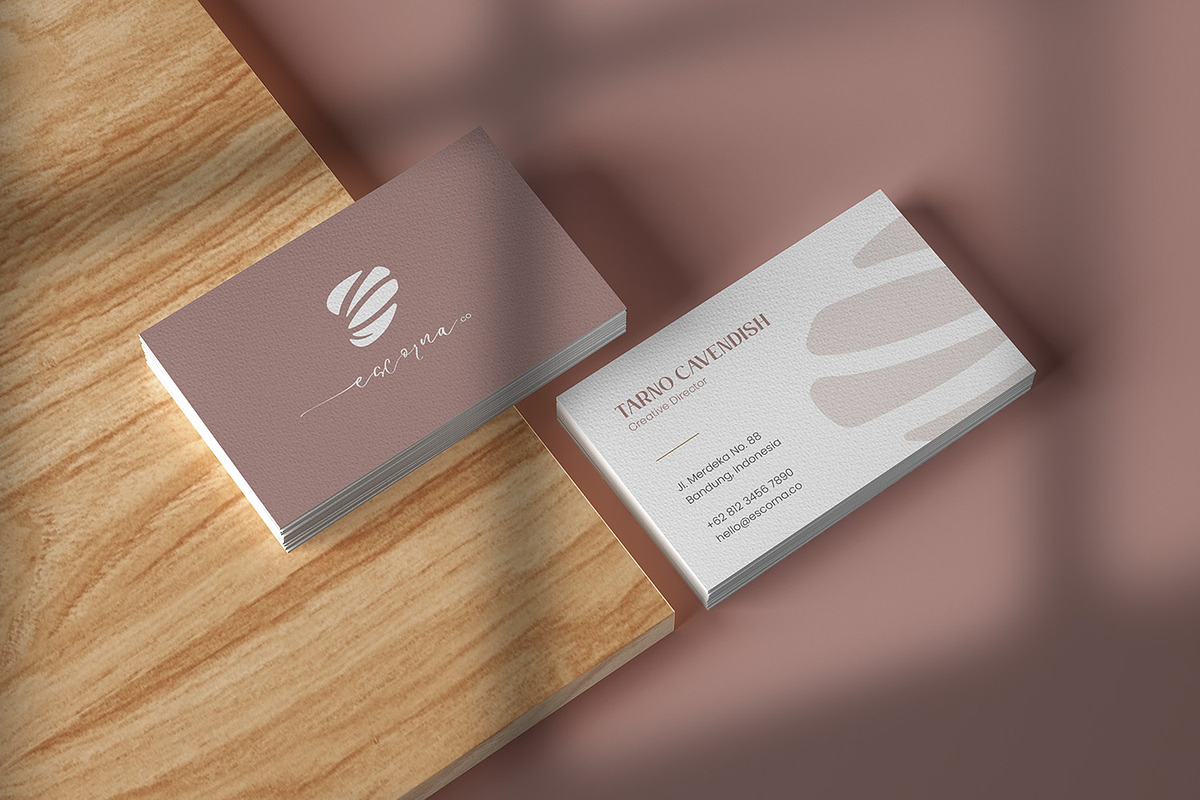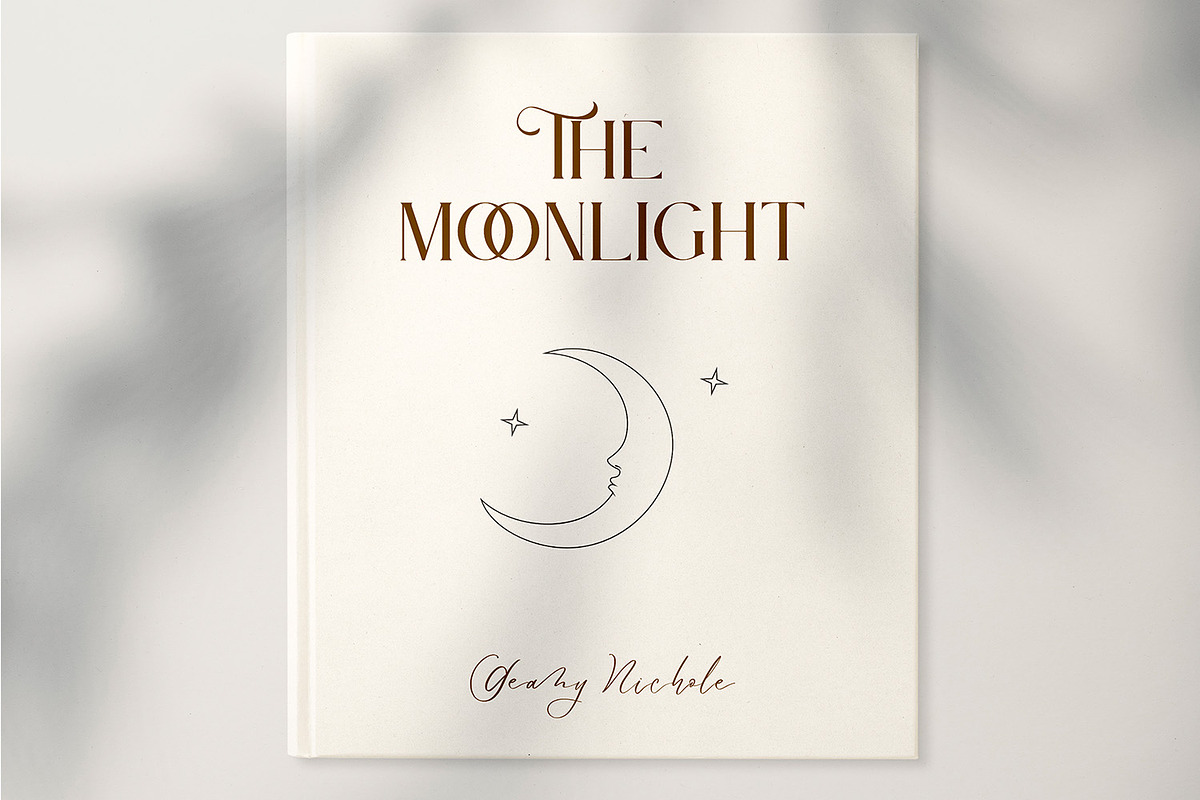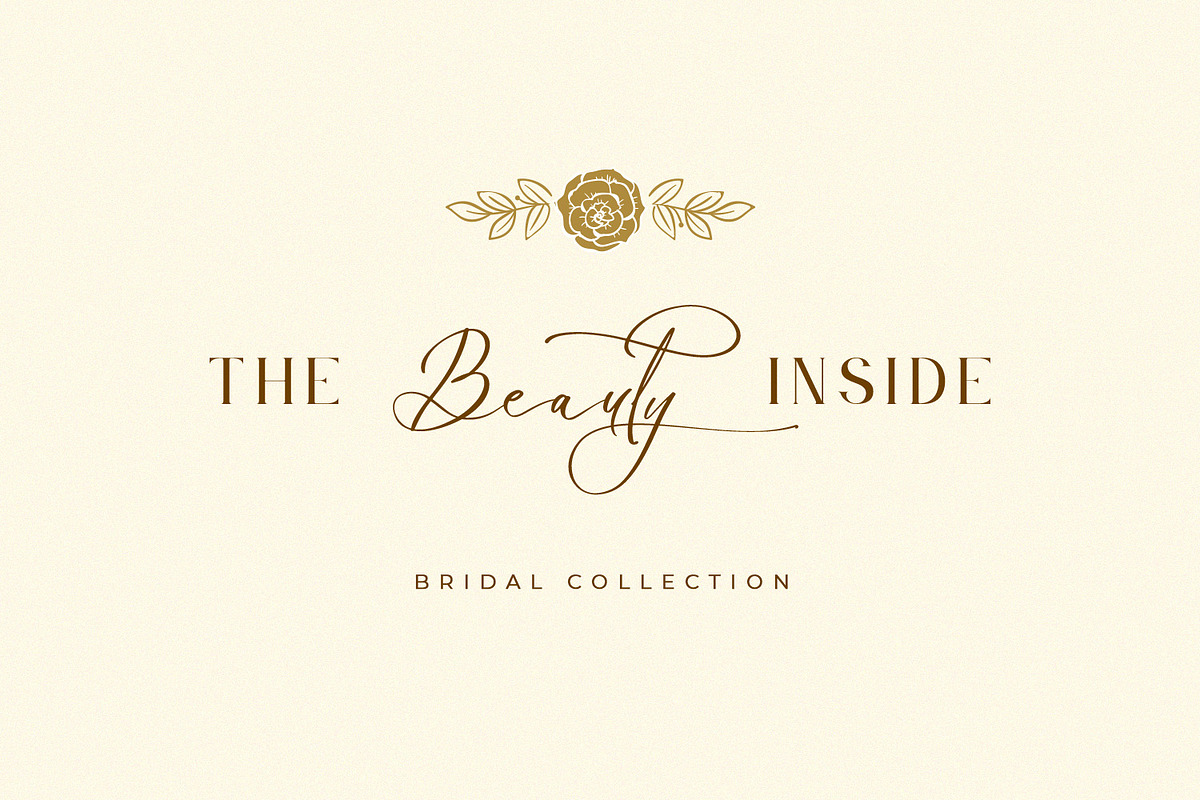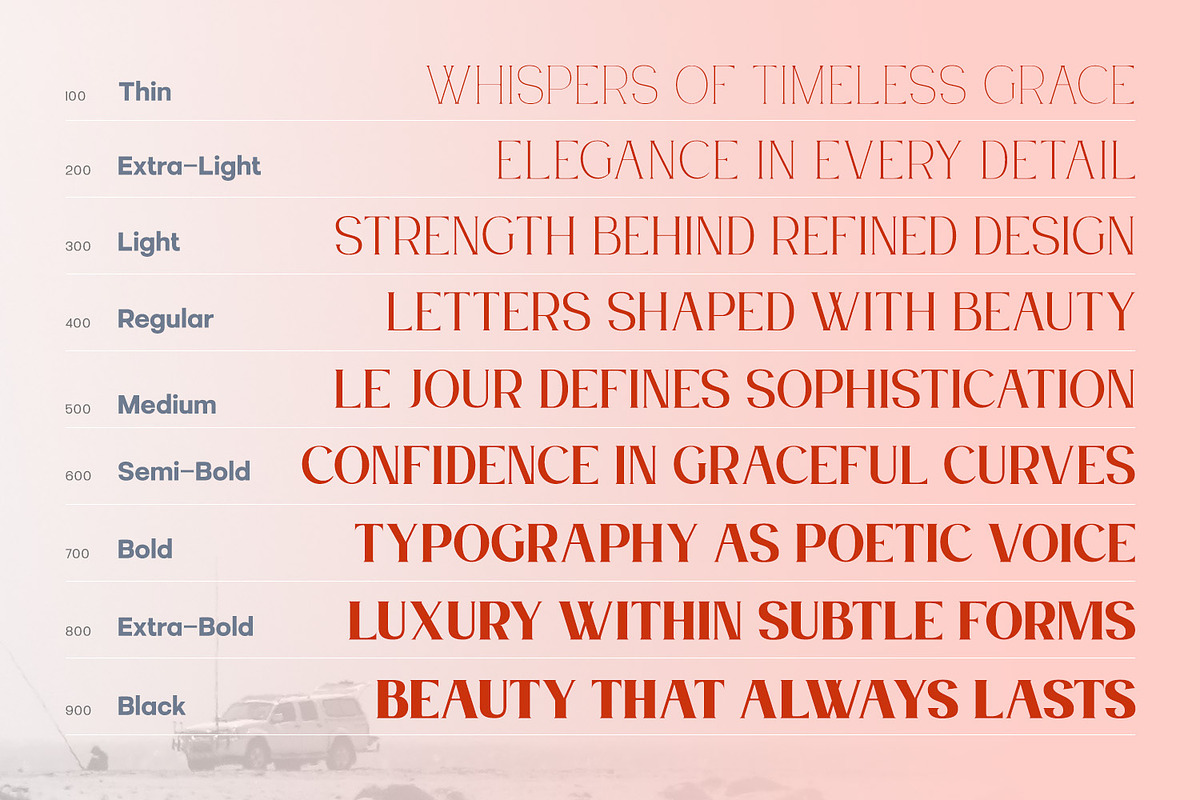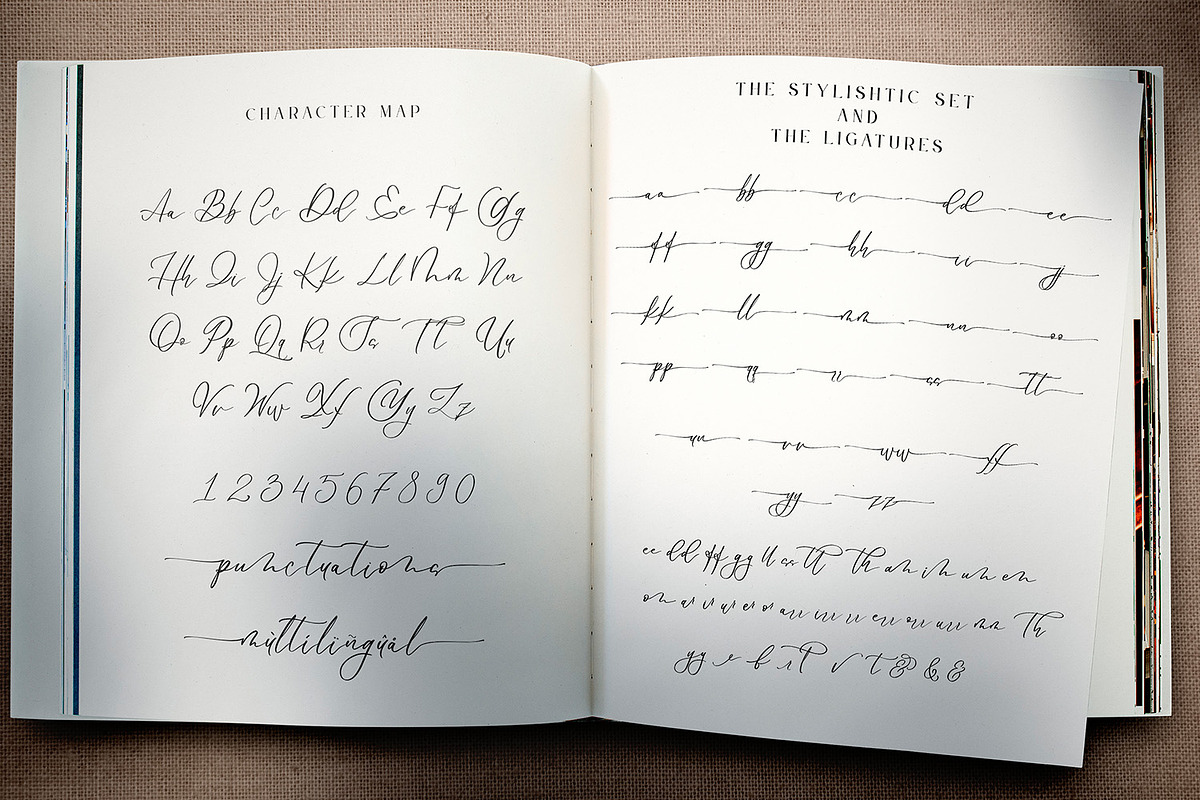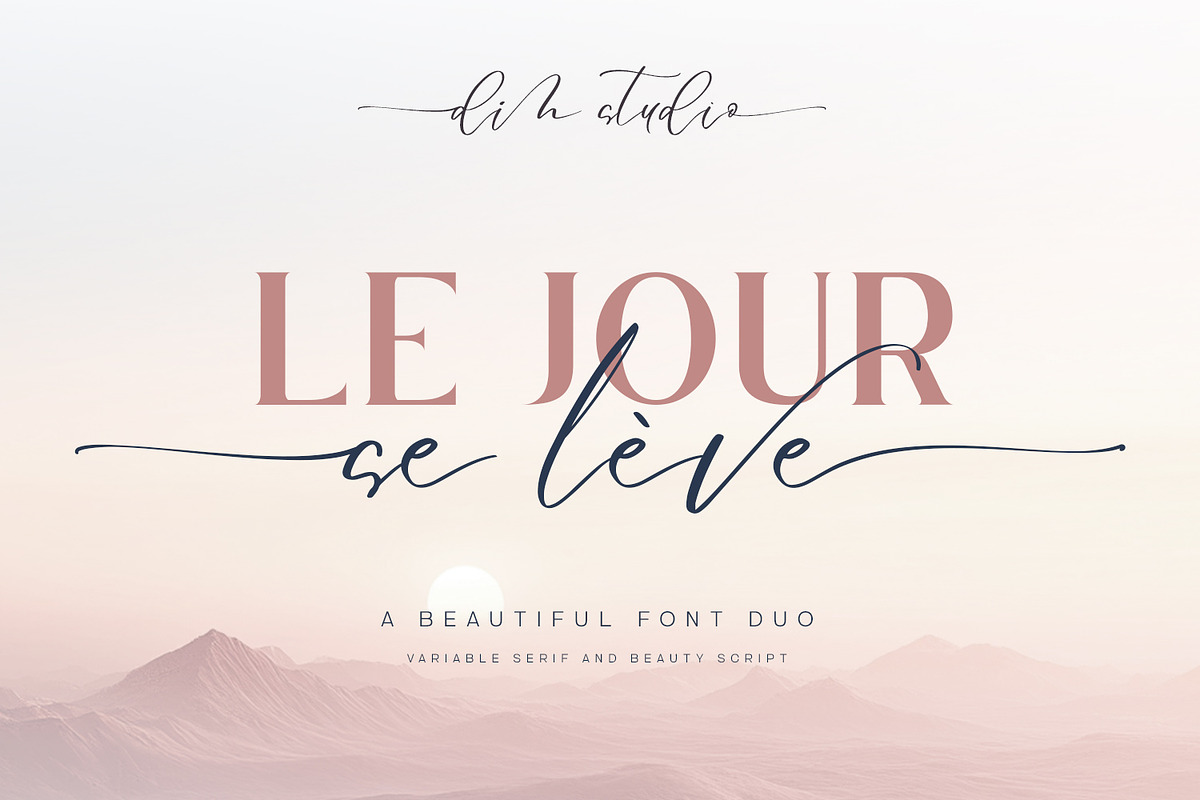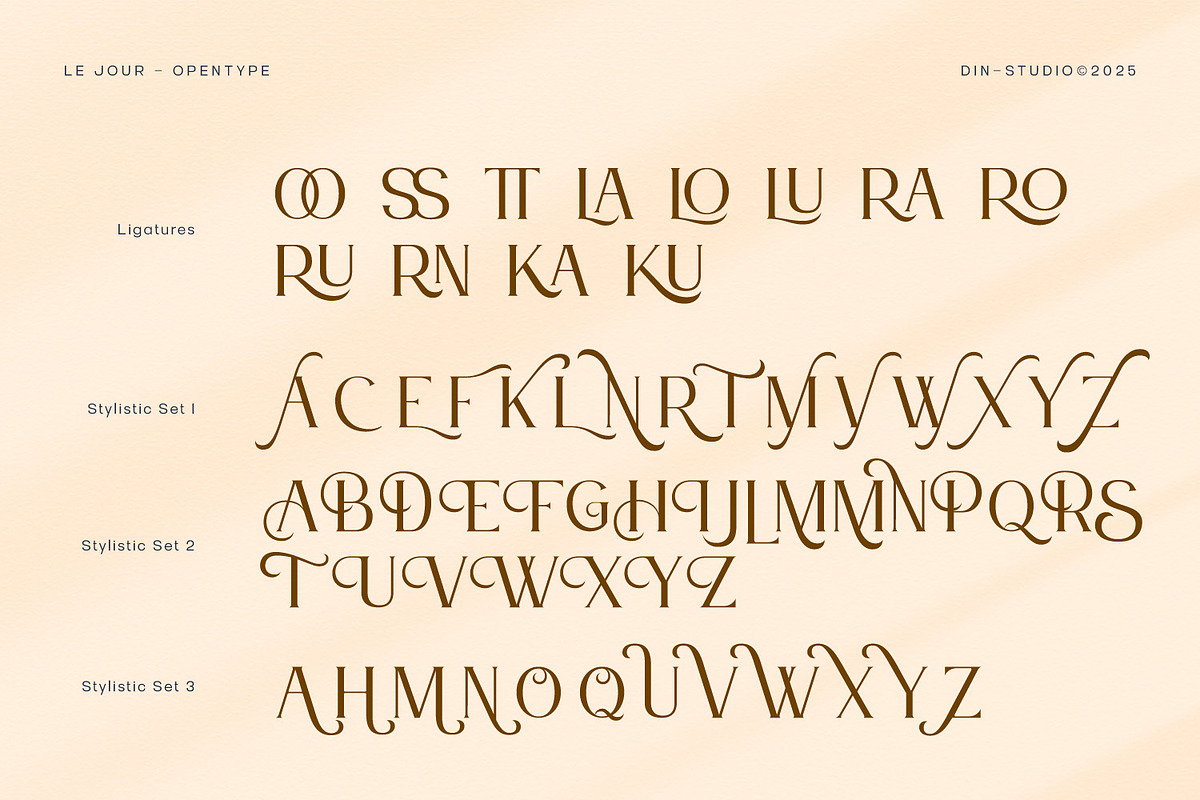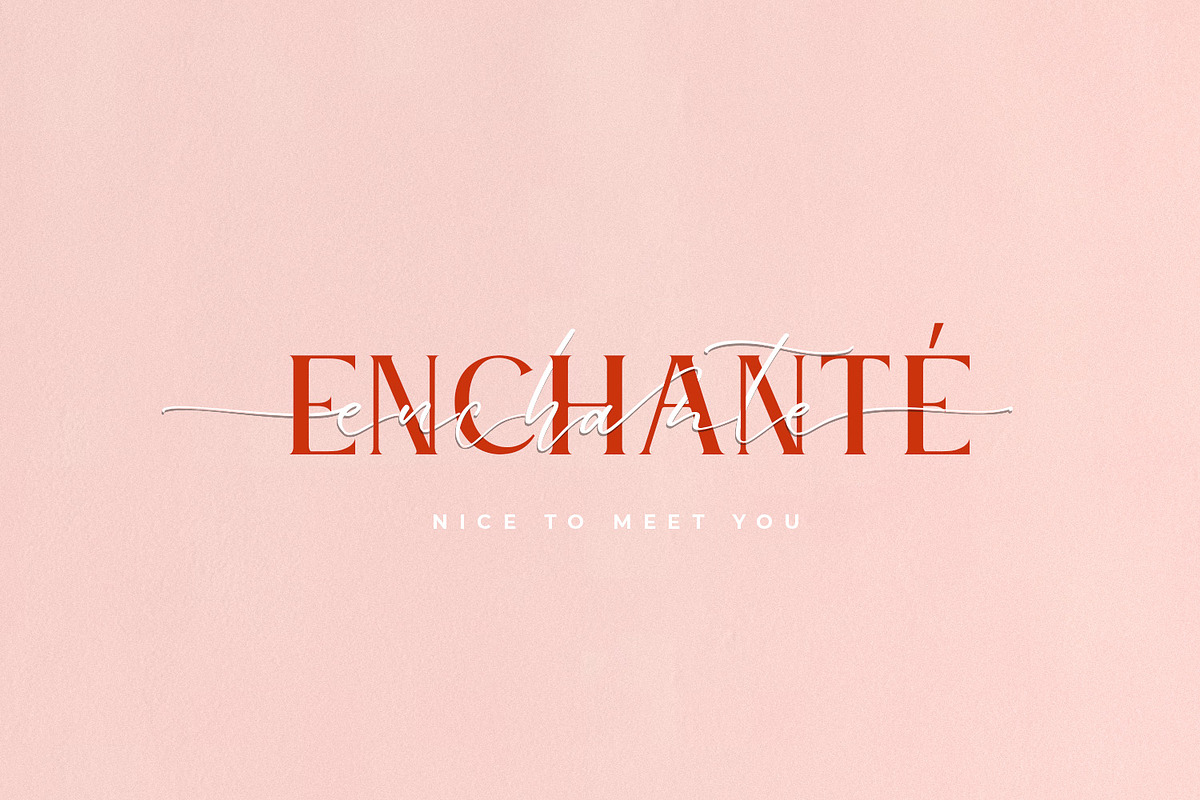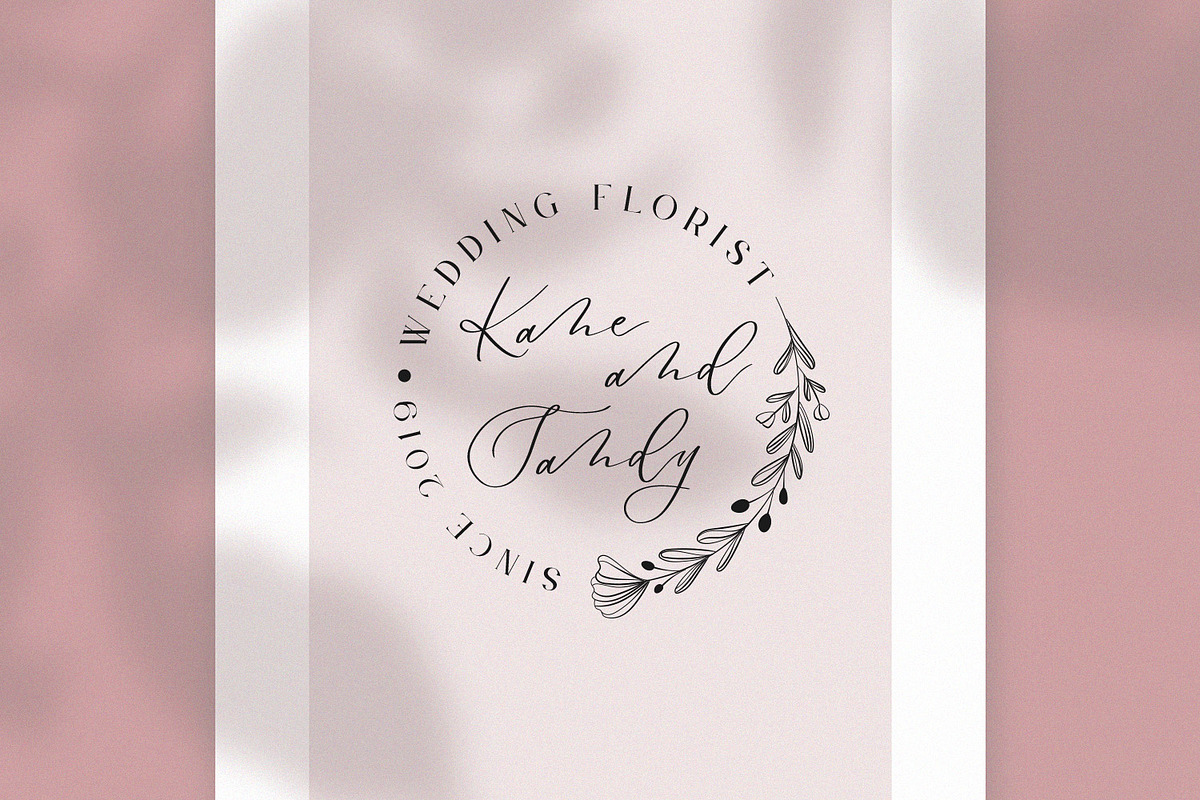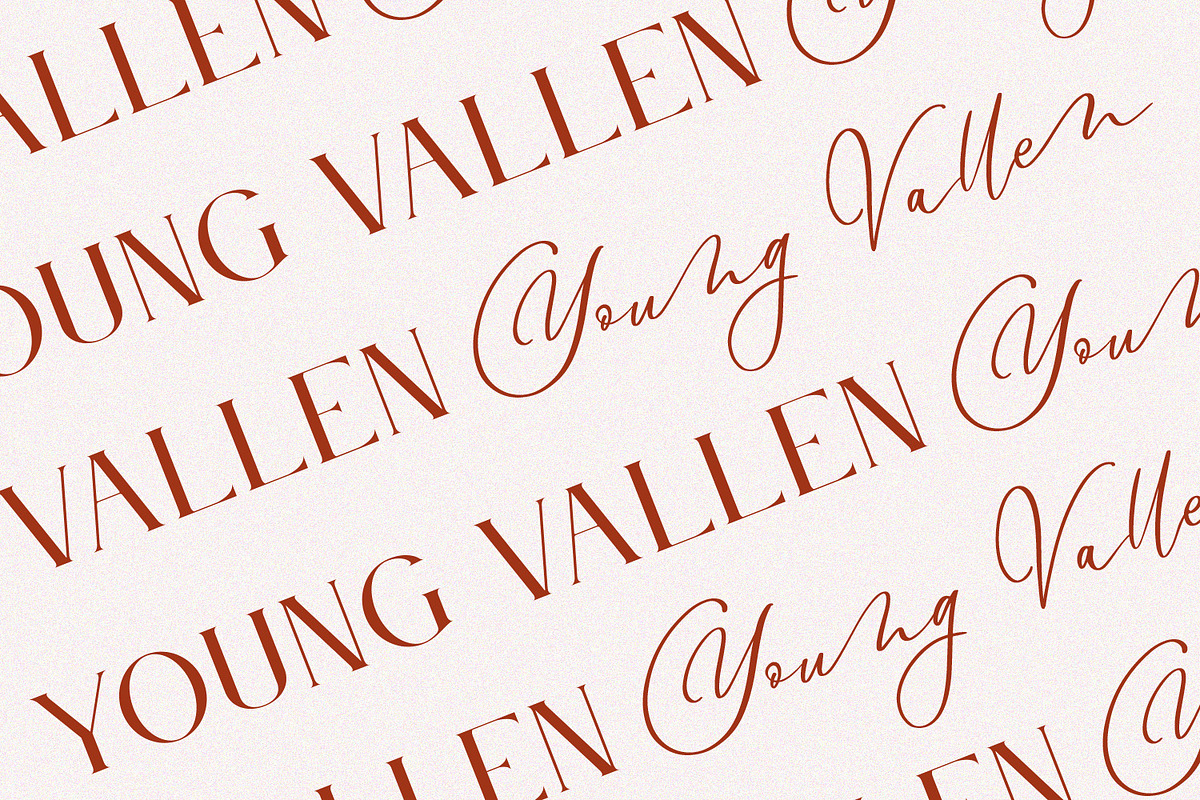
Le Jour - Font Script Serif Family
Introducing Le Jour Font Script Serif Family.
Le Jour is a beautiful calligraphy combine with modern serif. Made with naturally handwritten. The combination of the font will make your design more beautiful and luxury. This font is suitable for various designs, such as posters, banners, logos, book covers, headings, printed products, merchandise, social media, and more. Find out more ways to use this font by taking a look at the font preview.
- Le Jour Serif Font Family with 9 Weight Fonts
- Le Jour Script Font
- 58 Alternates
- 52 Stylisticsets
- Numerals and Punctuations (OpenType Standard)